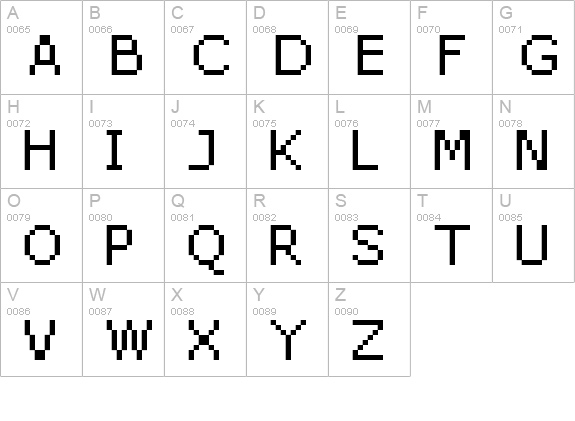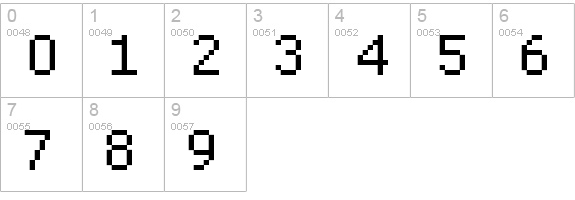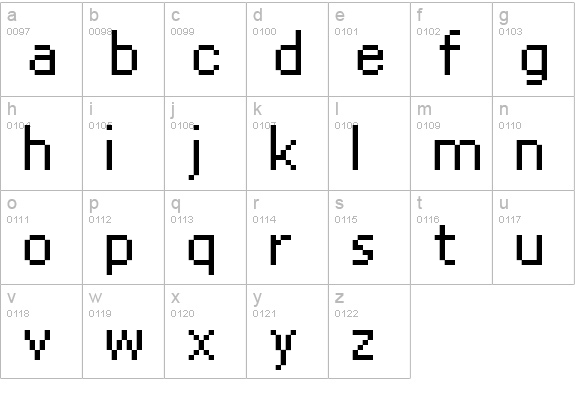
FFF Star Condensed is a distinctive, condensed-width variant in the FFF typeface family \xE2\x80\x94 well suited to design and typography projects.
FFF Star Condensed font is a sleek and modern typeface that exudes sophistication and style. With its condensed design, this font is perfect for creating eye-catching headings, titles, and branding materials. The clean lines and sharp angles give FFF Star Condensed font a contemporary edge that is sure to make a statement. This versatile font is ideal for a wide range of design projects, from posters and flyers to websites and packaging. Whether you're looking to add a touch of elegance to your designs or want to make a bold statement, FFF Star Condensed font has you covered. Best of all, FFF Star Condensed font is available for free download at FontsMarket.com. So you can elevate your design projects without breaking the bank. Download FFF Star Condensed font today and add a touch of sophistication to your designs.